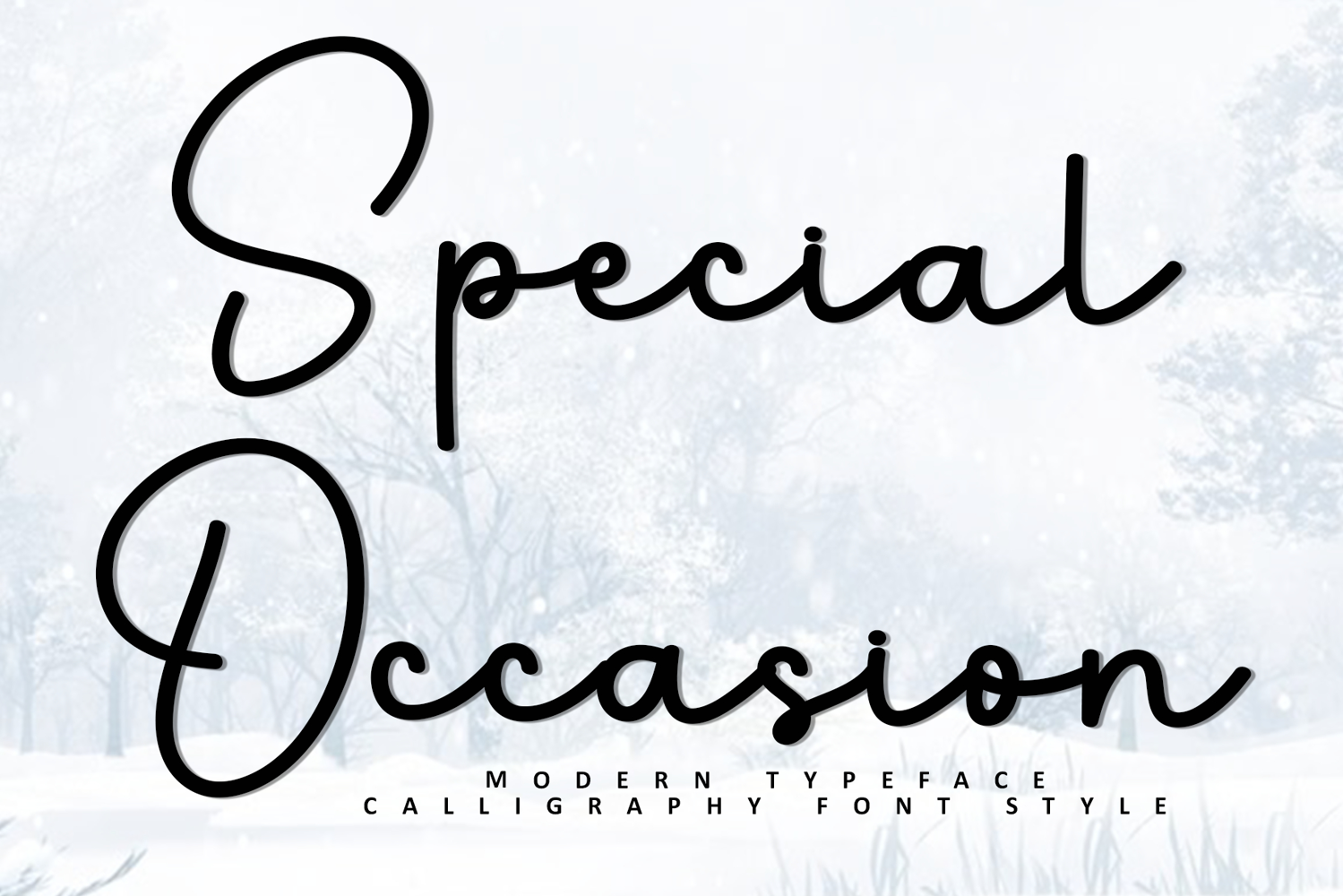
Special Occasion
Special Occasion is a beautiful and eye-catching font designed with a soft, unique touch. Its distinctive strokes give it a special character, making it meaningful and versatile for future use. With various characters, it’s perfect for design projects, crafts, and other creative works.